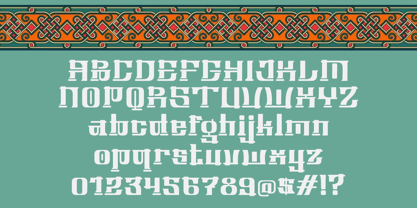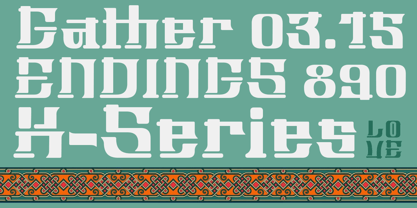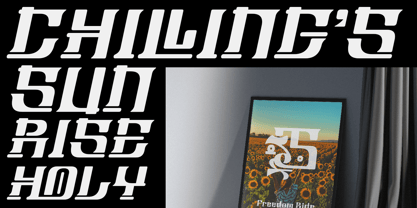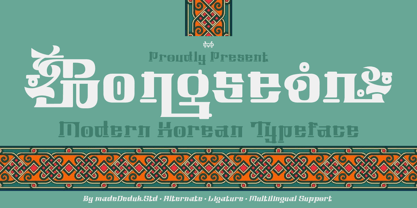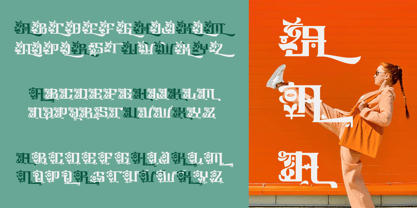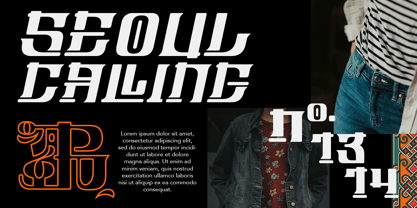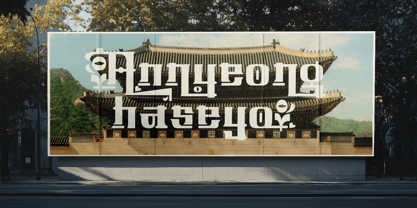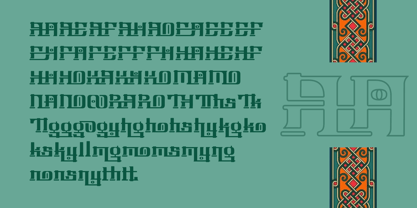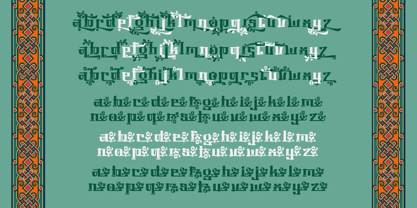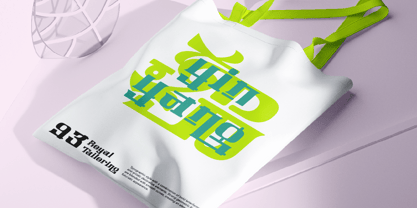
Bongseon
par madeDeduk
La famille de polices Bongseon a été conçue par madededuk et publiée par madeDeduk. Bongseon contient 2 styles et options de package familial. En savoir plus sur cette famille
Introducing Bongseon, this font presents a modern Korean-inspired typographic style with a combination of bold letterforms and artistic decorative elements. Strong geometric lines are blended with smooth curves, creating an elegant yet futuristic appearance. The small details in each character give the font a unique visual identity, making it feel similar to contemporary Korean typography often used in posters, branding, and modern creative designs.
The design of this font contains strong Korean influences, visible through its dynamic letter shapes, clean structure, and distinctive visual character. The combination of sharp edges and curved ornaments creates a stylish and artistic impression. Overall, the font delivers a trendy Korean aesthetic, making it suitable for K-style themed designs, music, and other modern visual content inspired by Korean culture.